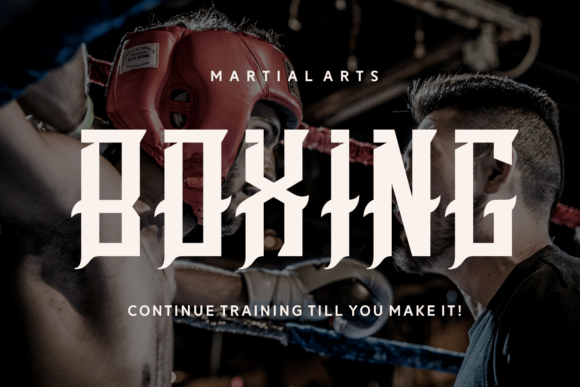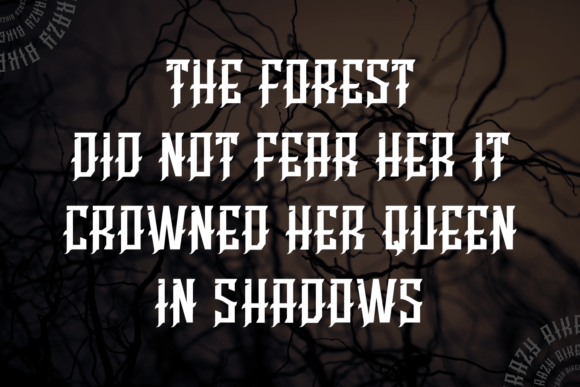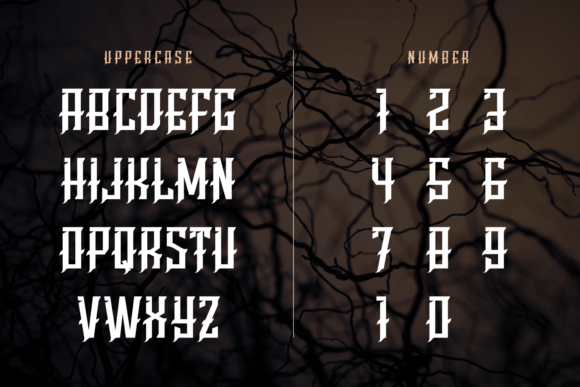
Introduction to Crazy Biker Font
There’s something special about the moment when a design concept clicks into place. For designers, it’s the rush of adrenaline that comes with creating something truly unique and eye-catching. And for those who’ve worked with the right tools, it’s the sense of satisfaction that comes with bringing a bold idea to life. For me, that moment came when I stumbled upon the Crazy Biker Font – a fierce and edgy blackletter font that’s perfect for making a statement.
With its sharp cuts, tall structure, and rebellious gothic style, the Crazy Biker Font is an absolute game-changer for designers looking to add some attitude to their creative projects. Whether you’re working on a motorcycle club logo, a streetwear brand identity, or a grunge-inspired tattoo design, this font is sure to deliver. And the best part? It’s available for free download, making it an invaluable resource for designers who demand high-quality design elements for their projects.
Key Features of Crazy Biker Font
- Unique, hand-drawn design with a bold and edgy feel, perfect for creative projects.
- Perfect for designers, artists, and writers looking for a unique and eye-catching font for their next creative project.
- Comes with a comprehensive character set, including uppercase and lowercase letters, numbers, and punctuation marks.
Honest Review: Crazy Biker Font
I recently stumbled upon the Crazy Biker Font and was excited to see how it would fit into my creative project. After a thorough evaluation, I’m sharing my honest thoughts on this design resource.
- ✨ The font has a high-quality feel to it, making it perfect for use in posters, flyers, or any other promotional material.
- ⚠️ The font’s unique style may not be suitable for all types of projects, particularly those that require a more professional or formal tone.
- ⚠️ The font’s bold design may be overwhelming if used in large quantities or without proper spacing.
Overall, I think the Crazy Biker Font is a great addition to any designer’s toolkit. While it may have some limitations, its high quality and versatility make it a valuable resource for creative projects. I’d recommend giving it a try and seeing how it fits into your next design endeavor.
To maximize the potential of the Crazy Biker Font, use it in conjunction with other creative elements, such as graphics and images. Experiment with different font combinations and arrangements to create unique designs. Don’t be afraid to push the boundaries and try new things – the Crazy Biker Font is a versatile design resource waiting to be explored.
The Crazy Biker Font is ideal for various creative projects, including graphics, posters, and presentations. Use it to add a touch of edginess to your designs or to create a bold, eye-catching effect. Whether you’re designing for personal or professional use, the Crazy Biker Font is a valuable addition to your design toolkit.